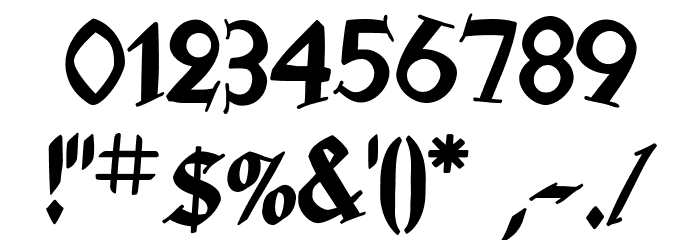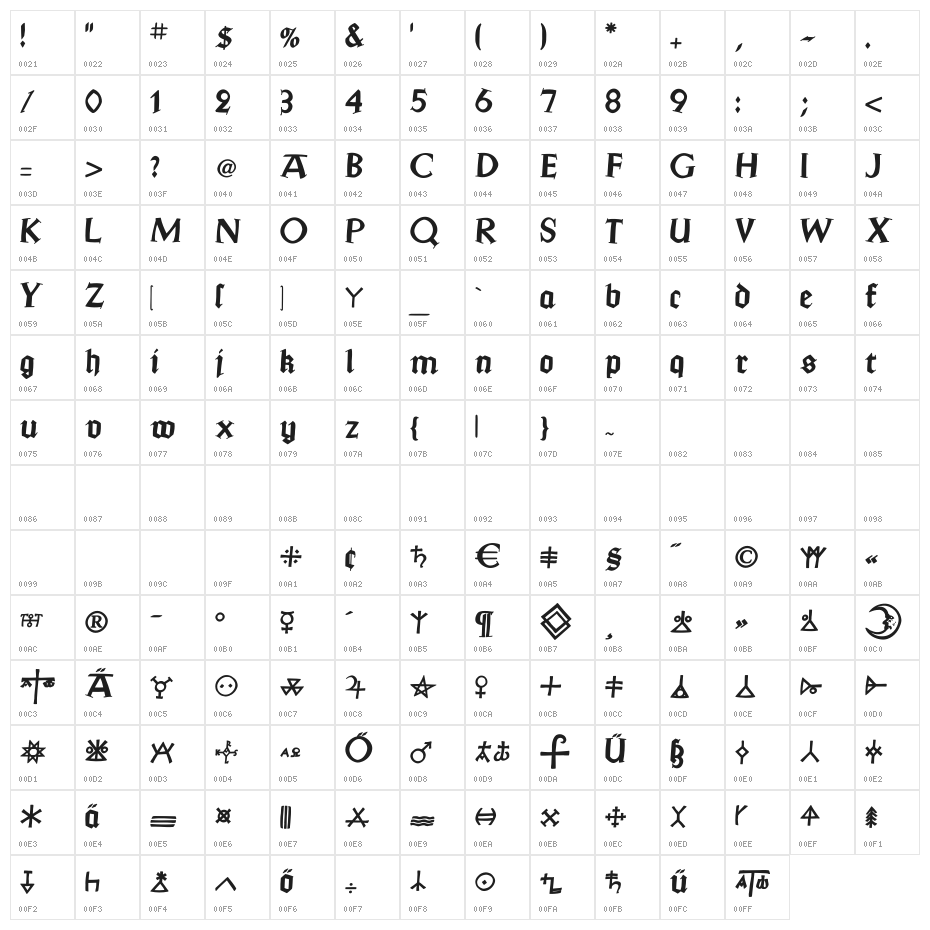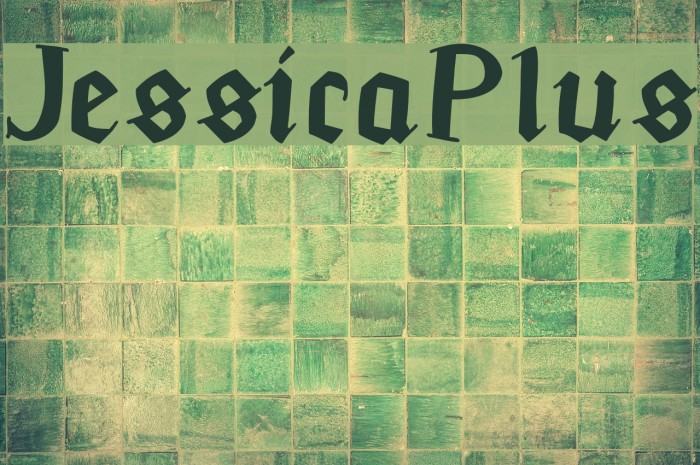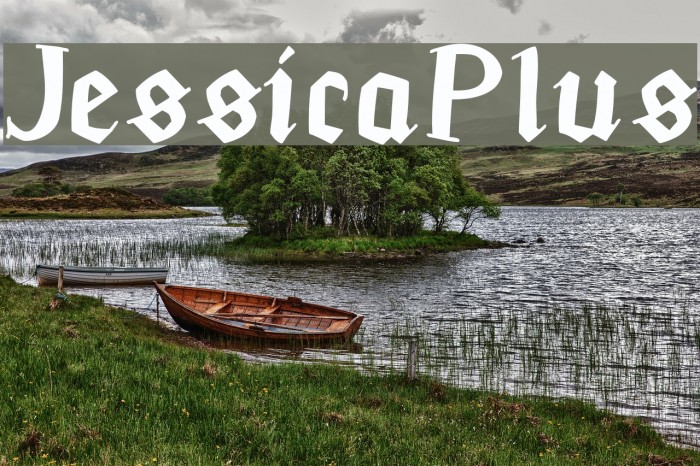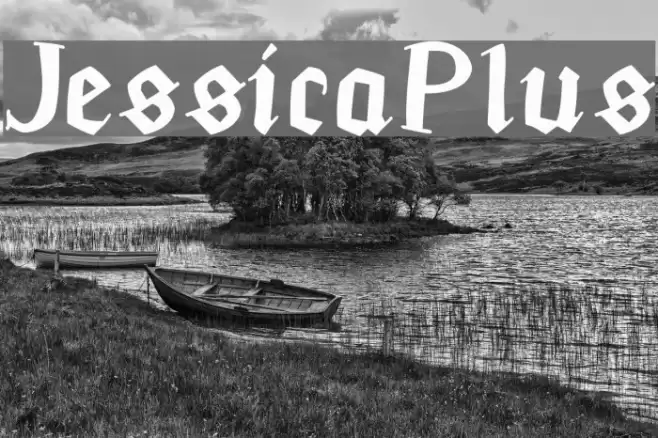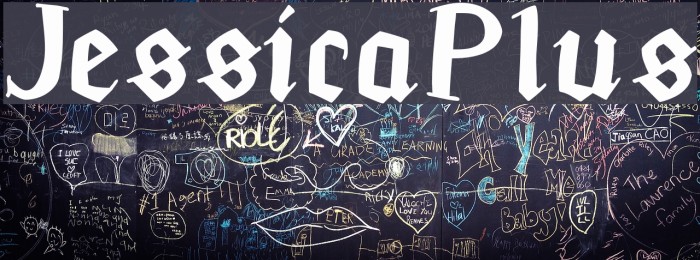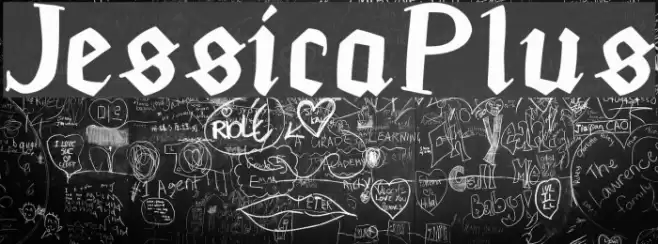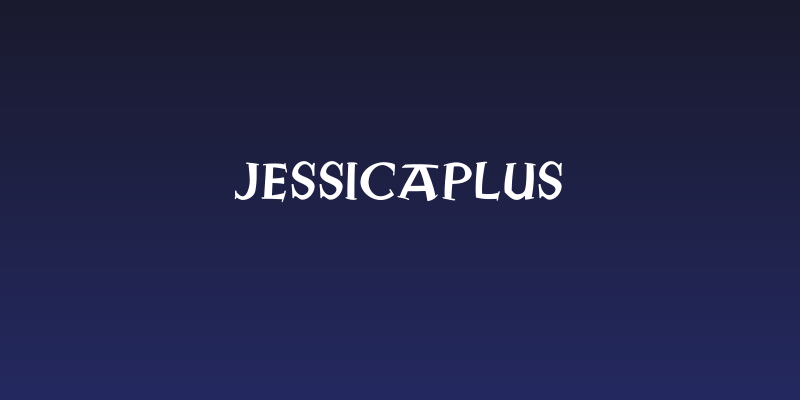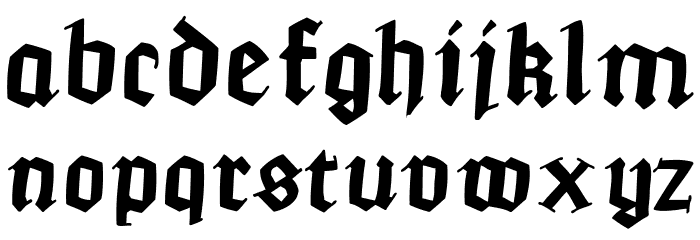
JessicaPlus Font
JessicaPlus Description
This font features a bold and dynamic style, characterized by sharp angles and a slightly medieval flair. The uppercase letters are distinct with strong, angular strokes, while the lowercase letters maintain a consistent style with a touch of elegance. The numerals are bold and clear, ensuring readability. Special characters are uniquely styled, adding to the font's overall decorative appeal. The design is reminiscent of traditional blackletter fonts but with a modern twist, making it suitable for a variety of creative projects.
| Proposed Projects | Ideal for branding, posters, book covers, and any project requiring a dramatic and eye-catching typeface. |